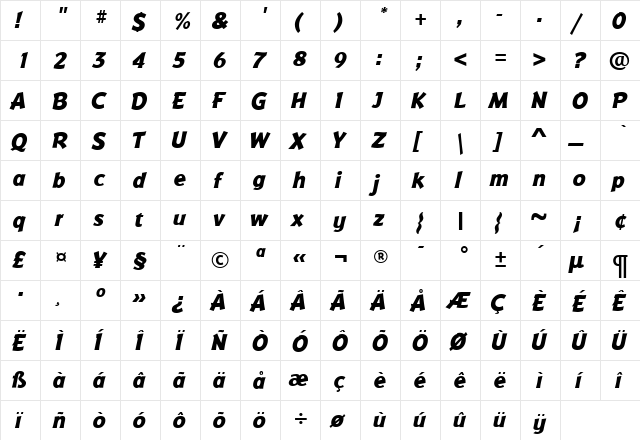
BadgerExtraBoldItalic Roman
Design Context for BadgerExtraBoldItalic Typeface
BadgerExtraBoldItalic is a composed and adaptable typeface that performs quietly and consistently across a wide range of design contexts. The slanted form adds forward momentum and visual energy. The heavy weight commands attention and anchors typographic hierarchies.
Pro Tip: Use BadgerExtraBoldItalic for emphasis, pull quotes, and subheadings where its slanted energy can add rhythm to the layout.